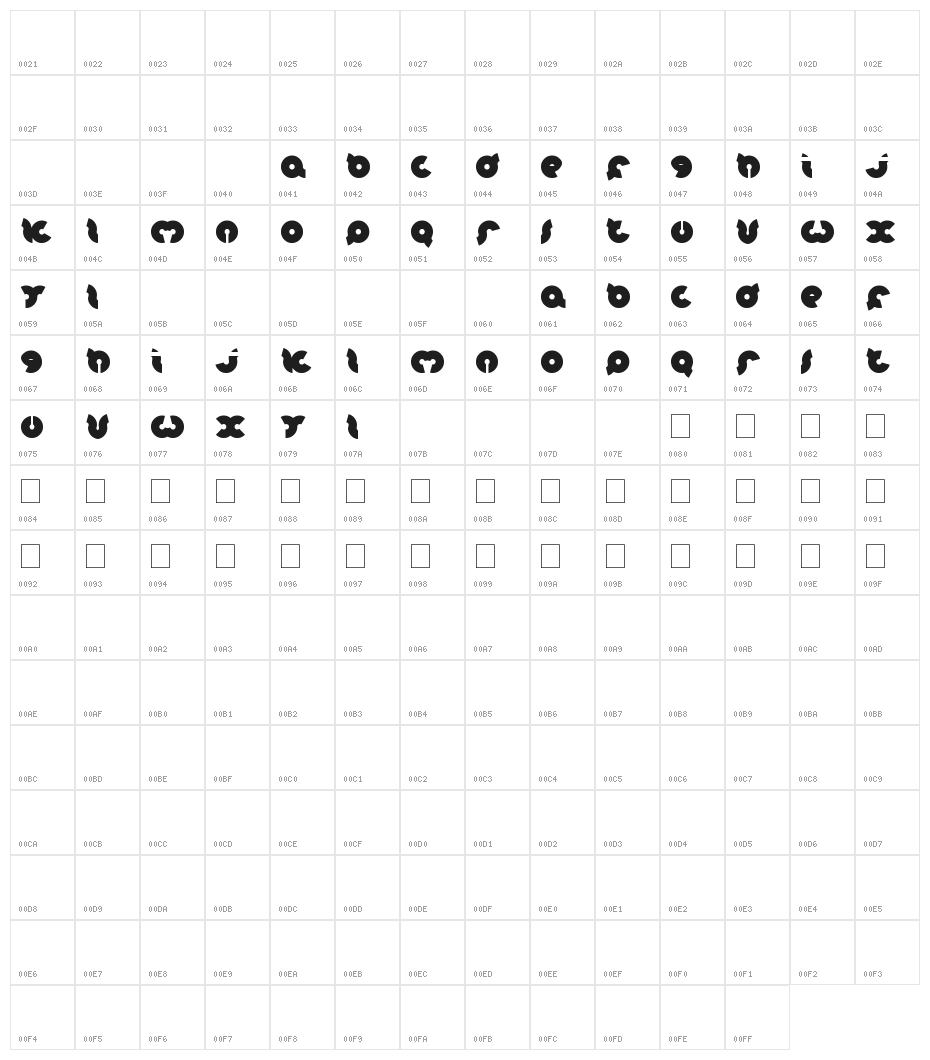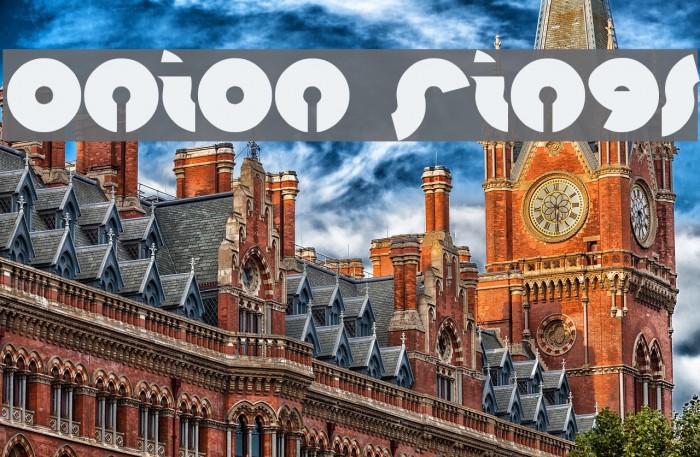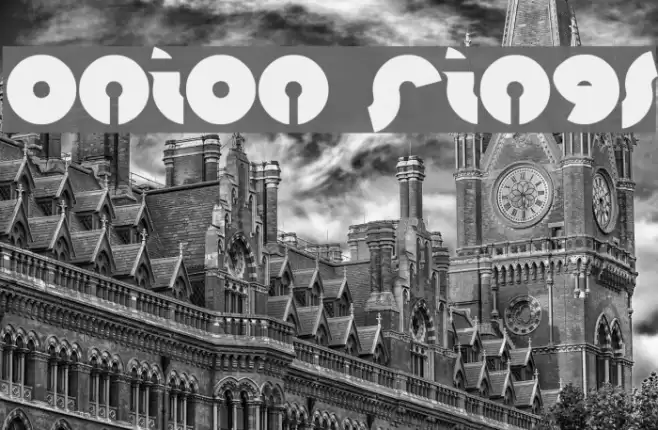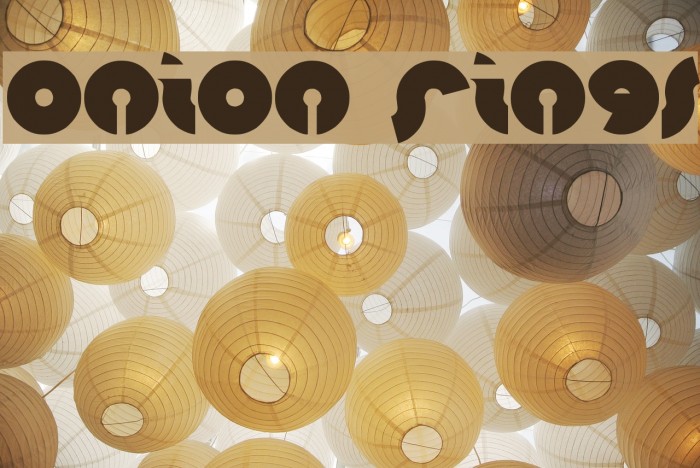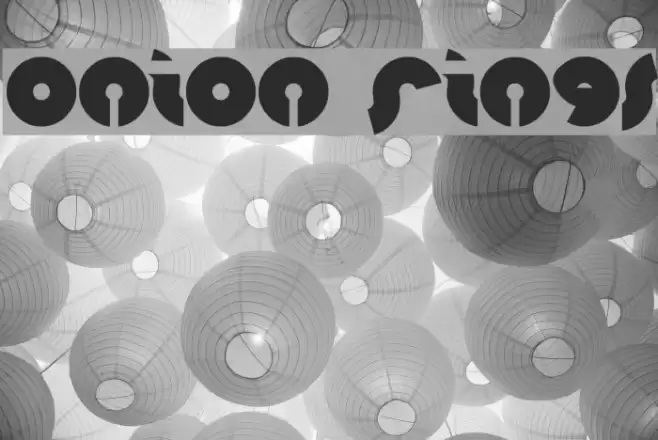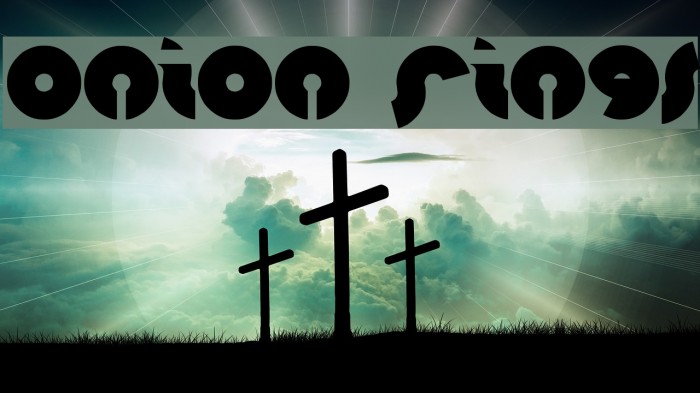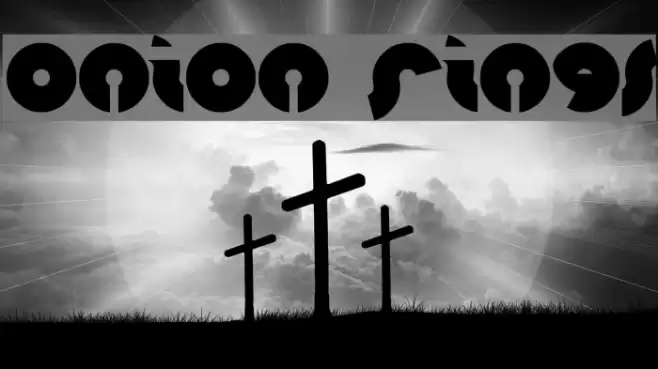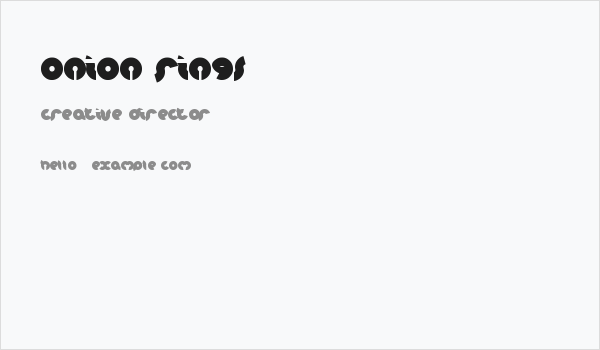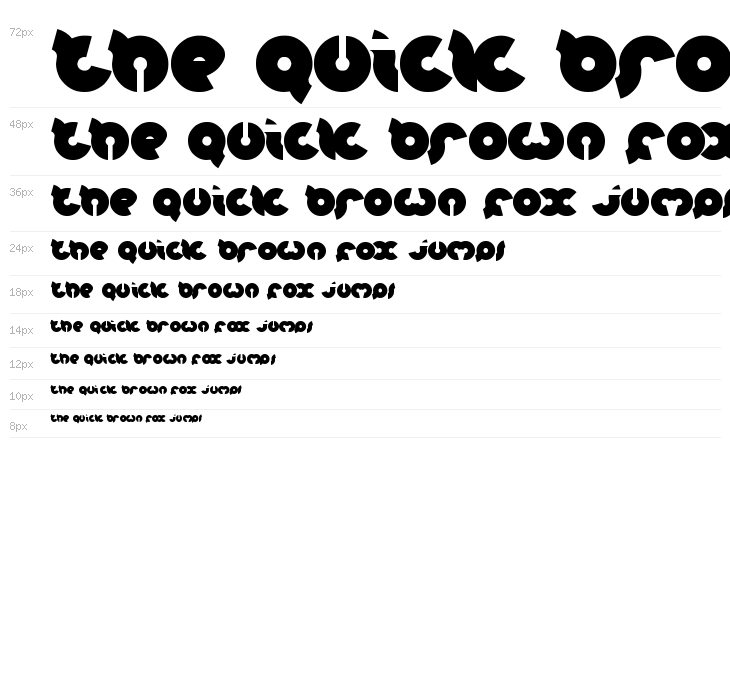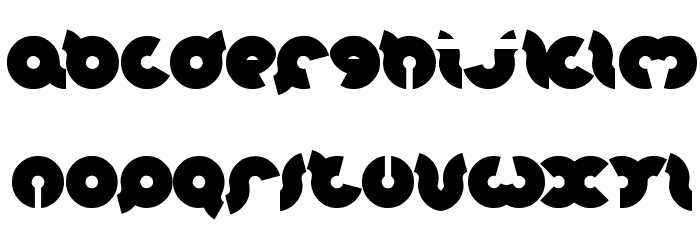
onion rings Font
onion rings Description
This font features a bold, geometric design with a playful and modern aesthetic. Each character is crafted with a circular motif, creating a cohesive and visually striking appearance. The letters are thick and rounded, with unique cutouts and shapes that add a distinctive flair. This design choice gives the font a dynamic and engaging look, making it ideal for creative projects. The uniformity in the circular forms across all characters ensures a harmonious and balanced visual impact.
| Proposed Projects | Ideal for branding, posters, album covers, and any project needing a bold, modern touch. |